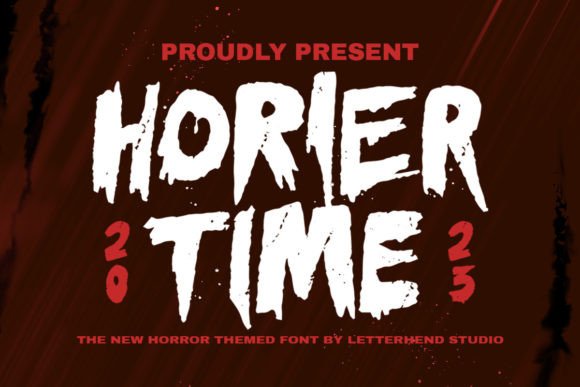
Enter the eerie realm of Horier Time, a display font that captivates with a spine-chilling bloody horror aesthetic. Prepare to be enthralled by a visual symphony of fear and fascination – where the grotesque and the elegant collide, conjuring an atmosphere that sends shivers down your spine.
Horier Time is the brainchild of the creative genius at Letterhend, a master of typographic sorcery. This bloodcurdling font is the ultimate weapon in your creative arsenal, capable of unleashing an arsenal of emotions that will leave your audience spellbound.
Unleash the primal scream within your designs with Horier Time, a font that amplifies the macabre. Its jagged edges and ominous contours will leave an unsettling impression, evoking a sense of dread and anticipation in equal measure. Let your words dance in a torrent of blood, casting an aura of mystery and suspense over your message.
With Horier Time, you can conjure worlds that defy the boundaries of reality. Imagine your creations adorned with the chilling elegance of this font, oozing with an eerie beauty that will leave your audience breathless. Its razor-sharp precision and unsettling presence will ensure your designs leave an indelible mark on the minds and souls of all who encounter them.
Embrace the allure of the dark side with Horier Time, a font that captures the essence of Halloween and dark fantasy themes. Whether crafting gripping book covers, haunting posters, or chilling video game interfaces, Horier Time will inject an unsettling charm into your projects that will leave your audience craving more.
But beware, Horier Time is not for the faint of heart. Its dark and macabre aura may not be suitable for all audiences. But for those who dare to embrace the darkness, Horier Time promises an unparalleled journey into the realm of the macabre, leaving an enduring legacy of terror and wonder.